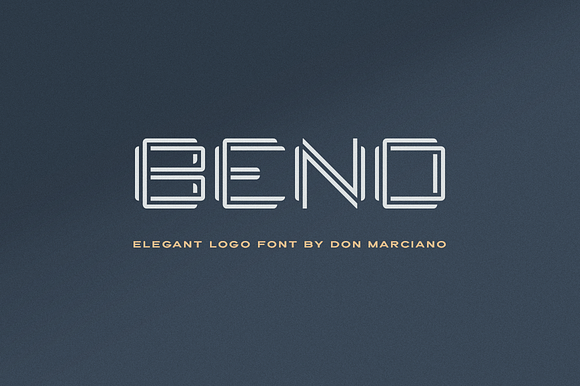
Bend Logo Font
Bend Logo Font is perfect for flexible brand identities, adaptive corporate logos, creative agency branding, dynamic startup identities, innovative product packaging, versatile web design, modern signage systems, contemporary business cards, professional portfolio layouts, and scalable trademark applications.
What makes Bend Logo Font so exciting is its remarkable ability to adapt and flex with changing brand needs through letterforms that seem to bend and flow with creative possibilities while maintaining strong structural integrity and professional credibility. This versatile typeface captures the essence of modern adaptability and design flexibility with characters that communicate both strength and fluidity, reliability and innovation. The font's dynamic design elements perfectly balance structural stability with creative flexibility, creating an indispensable tool that communicates adaptability, professional versatility, and design intelligence, making it essential for brands that need to remain relevant and effective across diverse applications and evolving market conditions.
The structural flexibility in Bend Logo Font makes it particularly effective for modern businesses and creative organizations where maintaining brand consistency across multiple platforms and applications while allowing for creative adaptation is crucial for successful brand management. Its adaptable letterforms work exceptionally well across all brand touchpoints, from business cards to billboard advertising, maintaining consistent brand impact while offering creative flexibility.
Brand identity professionals recognize how Bend Logo Font transforms ordinary company names into memorable brand marks that can evolve and adapt while maintaining strong brand recognition and professional credibility. The typeface's versatile character set includes comprehensive punctuation support, international language features, and scalable design elements that accommodate complex branding requirements and global market applications.
For creative professionals specializing in brand development, corporate identity, and flexible logo design systems, Bend Logo Font serves as the ultimate foundation for creating memorable visual identities that capture the essential qualities of professional adaptability, design intelligence, and brand flexibility that define successful contemporary brands in dynamic, ever-changing business environments.